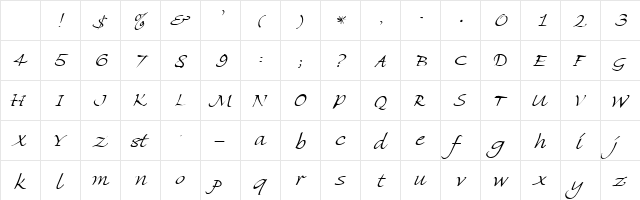
Negative is a composed and adaptable typeface that performs quietly and consistently across a wide range of design contexts. The slanted form adds forward momentum and visual energy.
Pro Tip: Use Negative for emphasis, pull quotes, and subheadings where its slanted energy can add rhythm to the layout.